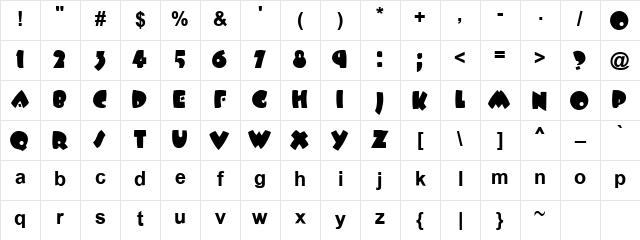
Plowboy Regular Free Font
Plowboy Regular
Design Context for Plowboy
Plowboy is a composed and adaptable typeface that performs quietly and consistently across a wide range of design contexts.